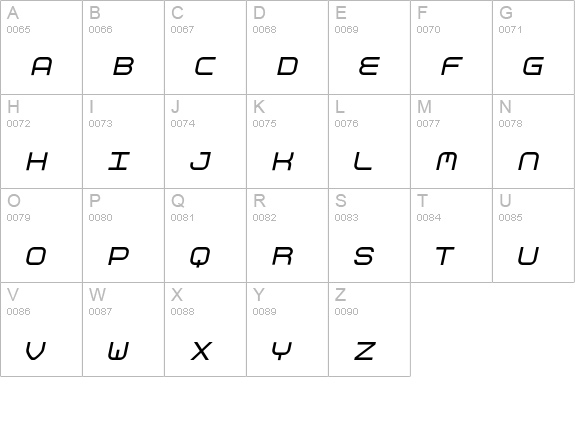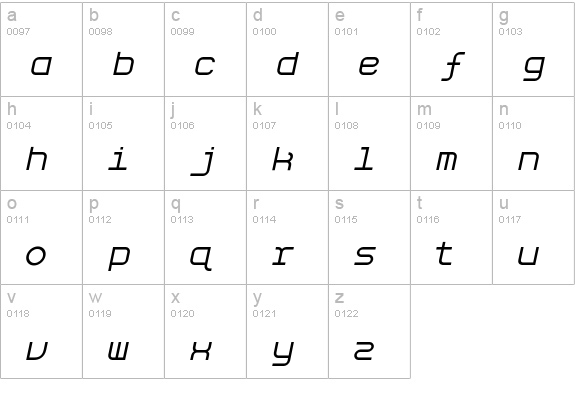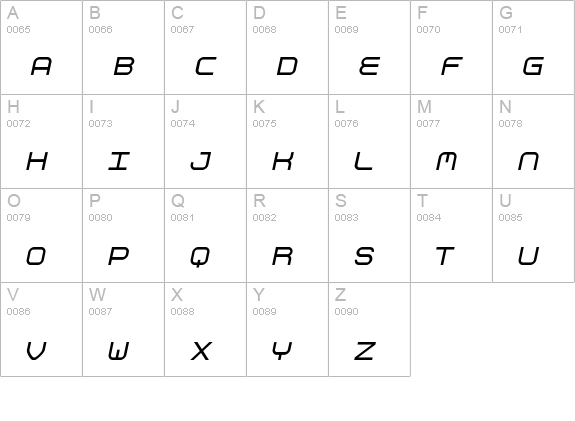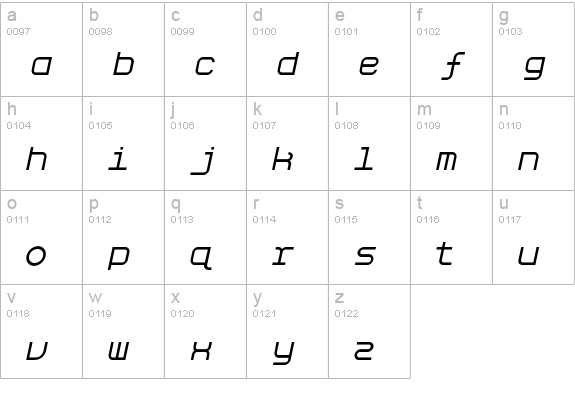
Aspirin-Intoxicate Font Details
Introducing Aspirin-Intoxicate font, a unique and eye-catching typeface that will make your designs stand out from the crowd. This font features a modern and edgy style with a touch of sophistication, perfect for projects that require a bold statement. The Aspirin-Intoxicate font is versatile and can be used for various purposes such as branding, packaging, posters, and more. The best part is that Aspirin-Intoxicate font is completely free to download at FontsMarket.com. With just a few clicks, you can add this stunning font to your collection and start creating amazing designs. Don't miss out on this opportunity to enhance your projects with the Aspirin-Intoxicate font - download it today and let your creativity shine!